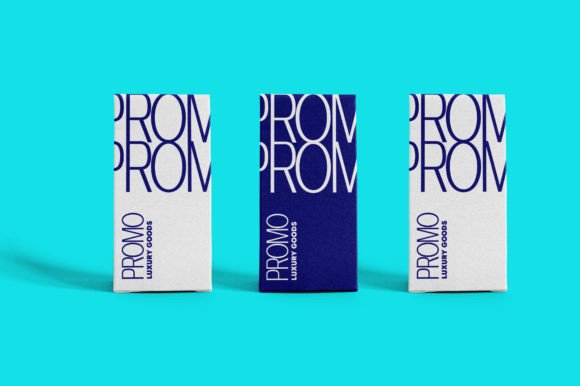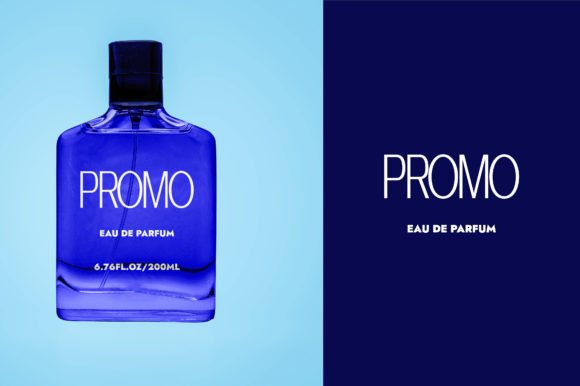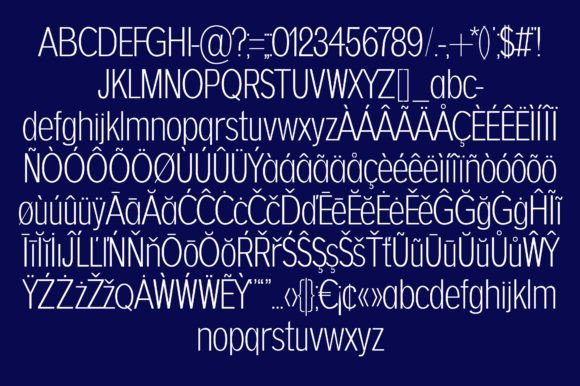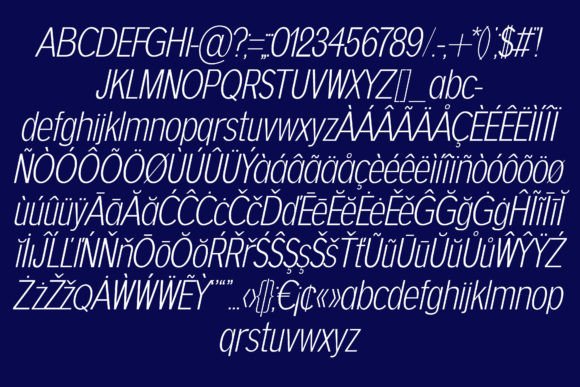
Introduction to Promo Font
Have you ever stared at a blank canvas, struggling to find the perfect font to bring your creative project to life? We’ve all been there. The blank page can be daunting, but what if you had the right design resource at your fingertips? That’s where the Promo Font comes in – a minimalist sans serif font that’s guaranteed to elevate your design and leave a lasting impression.
With its clean and modern aesthetic, the Promo Font is the perfect solution for designers looking to add a touch of sophistication to their work. Whether you’re working on a high-quality brochure, a free download, or a simple social media graphic, this versatile font is sure to make your design stand out from the crowd. And the best part? Its transparent background makes it easy to overlay on any image or background, giving you complete creative freedom.
So why is the Promo Font so valuable for designers? For one, its simplicity makes it incredibly easy to use, even for those who are new to design. Plus, its modern look and feel will ensure that your design stays on-trend and visually appealing. With the Promo Font, you can say goodbye to boring designs and hello to eye-catching typography that’s sure to grab attention.
Key Features of Promo Font
- Unique, modern design that stands out in promotional materials
Honest Review: Promo Font
I recently stumbled upon Promo Font while searching for a design resource to enhance my creative project. The initial impression was positive, and after a thorough analysis, I’d say it’s a decent addition to any designer’s toolkit.
- ✨ High-quality font with a modern and sleek design aesthetic.
- ⚠️ Limited customization options, which may not be ideal for designers seeking more control.
- ⚠️ Some users may find the font’s design too generic, lacking a unique personality.
Overall, I’d rate Promo Font 3.5 out of 5 stars. While it’s a useful design resource, its limitations hold it back from being a standout choice. However, it’s still a great option for designers working on simple creative projects or those who require a transparent background for their design elements.
Common Use Cases for Promo Font
Promo Font is perfect for creating promotional materials such as posters, flyers, and social media graphics. It’s also great for designing presentations, documents, and websites. With its high-quality design and transparent background, Promo Font is a versatile design resource that can be used in a variety of creative projects.